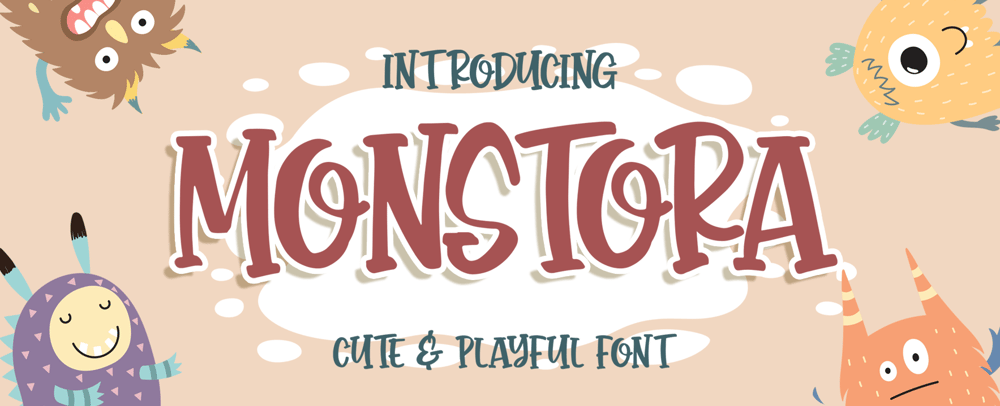
Monstora Font Family was designed by Bangkit Tri Setiadi and published by Blankids. Monstora contains 1 styles and family package options. Introducing of our new product the name is Monstora Cute & Playful Font. Monstoray inspired by bouncy quirky this font is a fun theme very good for, book cover, poster, t-shirt, quote, logotype, craft and etc.MULTILINGUAL ACCENT :ØÆøæ¢ÐŒœÁĂÂÀÄĄÅÃǼĆČÇĈĊĎÉĔĚÊËĖÈĘĞĜĢĠĤÍĬÎÏİÌĮĨĴĶĹĽĻĿŃŇŅÑÓŎÔÖÒŐǾÕŔŘŖŚŠŞŜȘŤŢÚŬÛÜÙŰŲŮŨẂŴẄẀÝŶŸỲŹŽŻáăâäàąåãǽćčçĉċďéĕěêëėèęğĝģġĥíîïìįĩĵķĺľļŀńʼnňņñóŏôöòőǿõŕřŗśšşŝșťţŭûüűùųůũẃŵẅẁýŷÿỳźžżFEATURES : Uppercase Lowercase Number Punctuation Multilingual PUA Encode Opentype